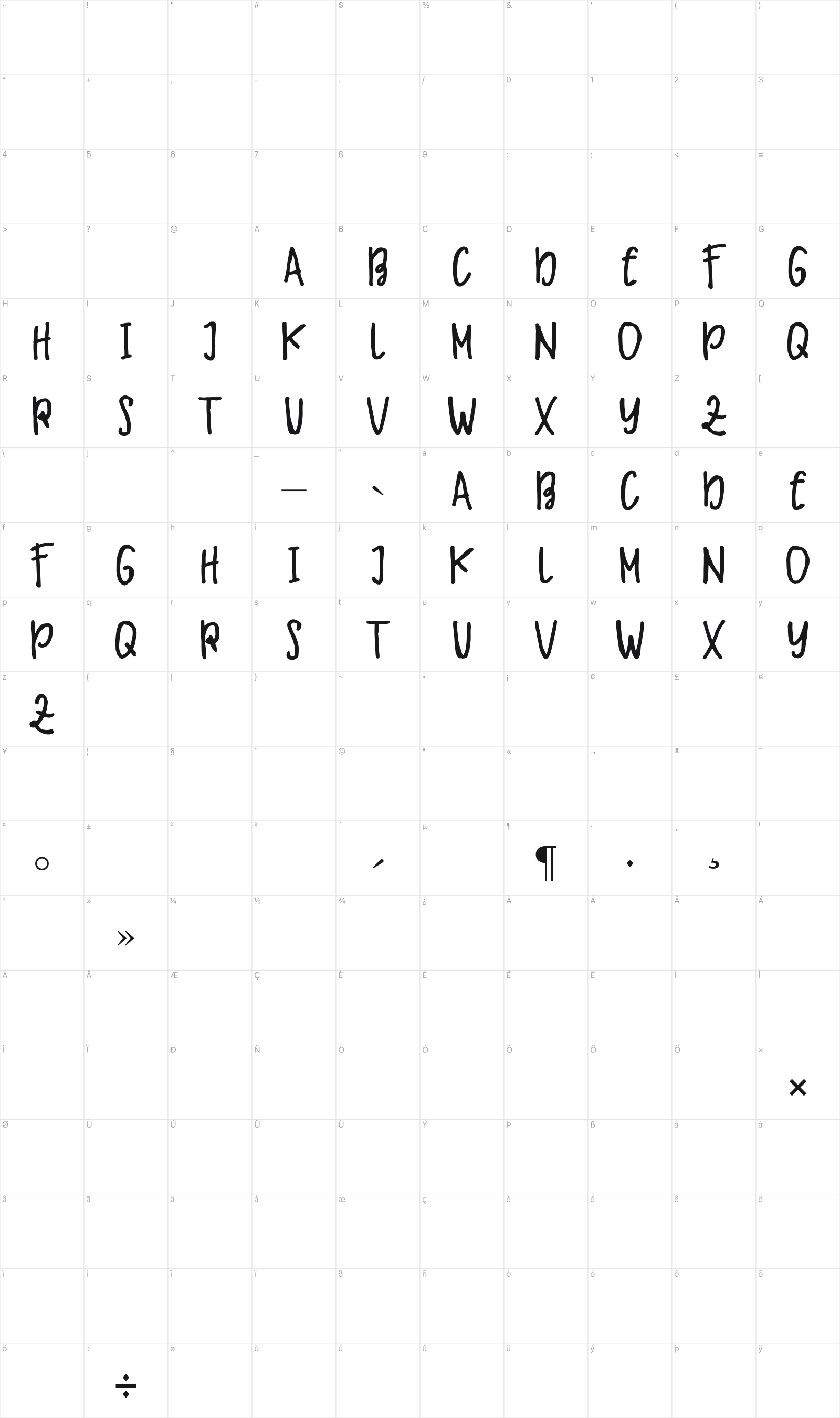
Makaw
by Ignatius Giwan
Makaw is a bold, uppercase handwritten face by Ignatius Giwan with the thick, uneven strokes of a chunky marker pressed hard against paper. The letterforms feel loose and playful, with just enough wobble to read as genuinely casual rather than digitally smoothed out. A solid pick for headlines, posters, and packaging where you want something that feels hand-lettered and informal.